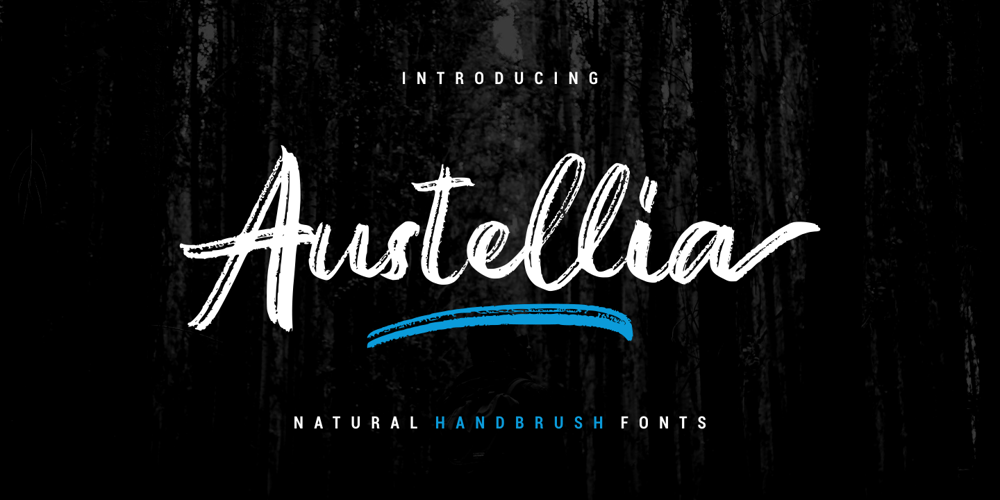
Austellia Font Family was designed by Risman Ginarwan and published by Garisman Studio. Austellia contains 2 styles and family package options. Austellia is made with natural handbrushes. With the unique Opentype in it and the ligature will add aesthetic value to your design product. Available in this file are Austellia Fonts and also Swash which you can unite into an amazing design. You can even use the Opentype feature without the help of any special software, whether it’s in Adobe Illustrator, Corel Draw, or Photoshop.